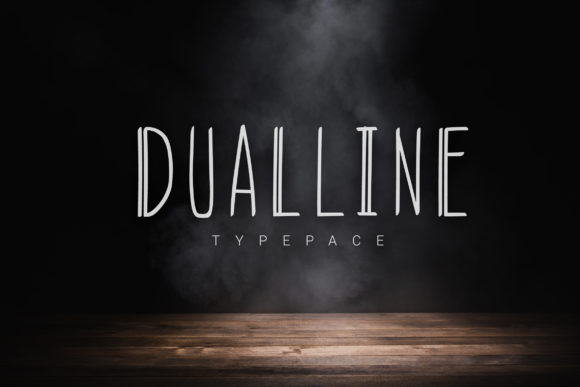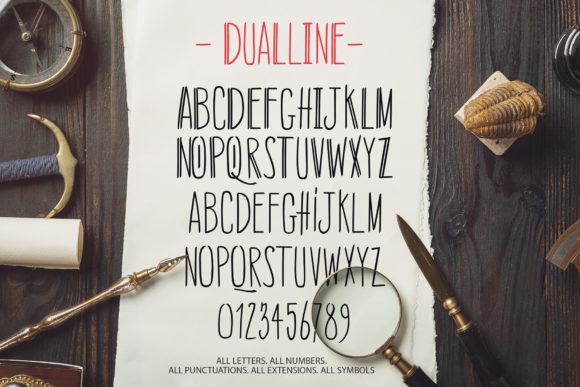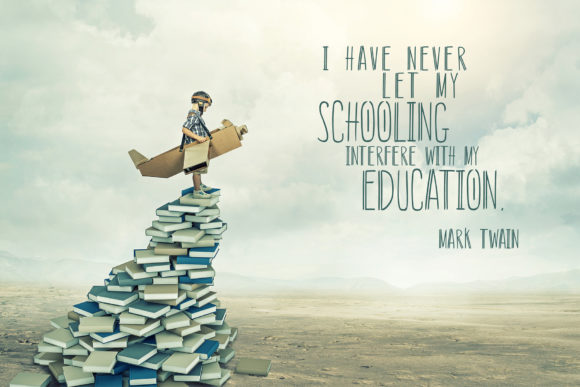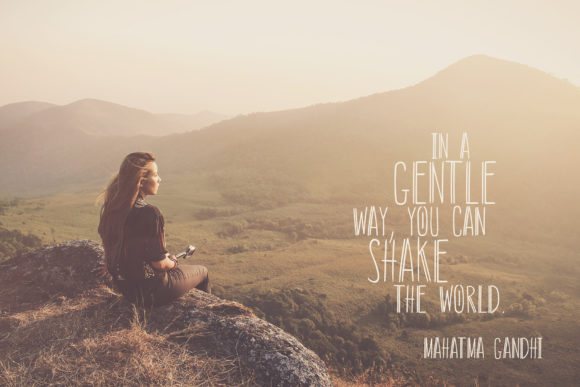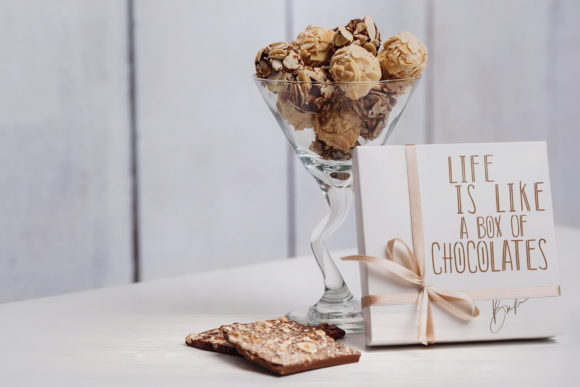
Introducing DualLine Font: Elevate Your Designs with a Modern and Appealing Display Font
In the world of design, fonts play a crucial role in conveying the message and aesthetic of a project. Whether you’re working on a branding campaign, a website, or a crafting project, the right font can make all the difference. If you’re looking for a modern and appealing display font to give your designs a unique edge, look no further than DualLine Font. In this article, we’ll explore the features and benefits of DualLine Font, and how it can help you achieve an original and modern appearance in your designs.
What is DualLine Font?
DualLine Font is a modern and stylish display font that is perfect for designers and crafters looking to add a touch of sophistication to their projects. With its clean lines and contemporary feel, DualLine Font is ideal for use in a variety of design applications, from logos and branding materials to websites and social media graphics.
Key Features of DualLine Font
- Modern and Appealing Design: DualLine Font boasts a sleek and modern design that is sure to turn heads. Its unique dual-line structure adds a touch of elegance and sophistication to any design.
- Ease of Use: DualLine Font is easy to use, whether you’re working on a design project from scratch or combining it with other fonts for a unique look.
- Versatility: DualLine Font is a versatile font that can be used in a variety of design applications, from print materials to digital projects.
- High-Quality Design: DualLine Font is designed with high-quality craftsmanship in mind, ensuring that your designs look professional and polished.
Benefits of Using DualLine Font
So why choose DualLine Font for your design projects? Here are just a few benefits of using this modern and appealing display font:
- Add a Touch of Sophistication: DualLine Font adds a touch of elegance and sophistication to any design, making it perfect for projects where you want to make a statement.
- Stand Out from the Crowd: With its unique dual-line structure, DualLine Font is sure to help your designs stand out from the crowd and grab attention.
- Easy to Pair with Other Fonts: DualLine Font is easy to pair with other fonts, allowing you to create unique and interesting combinations that add depth and visual interest to your designs.
- Perfect for Designers and Crafters: Whether you’re a professional designer or a crafter working on a personal project, DualLine Font is a great choice for anyone looking to add a modern and appealing touch to their designs.
How to Use DualLine Font in Your Designs
Using DualLine Font in your designs is easy. Here are a few tips to get you started:
- Use it as a Display Font: DualLine Font is perfect for use as a display font, making it ideal for headlines, titles, and other prominent text elements.
- Combine it with Other Fonts: Don’t be afraid to combine DualLine Font with other fonts to create a unique and interesting look.
- Experiment with Different Colors and Textures: DualLine Font looks great in a variety of colors and textures, so don’t be afraid to experiment and find the perfect combination for your design.
In conclusion, DualLine Font is a modern and appealing display font that is perfect for designers and crafters looking to add a touch of sophistication to their projects. With its clean lines, contemporary feel, and ease of use, DualLine Font is a great choice for anyone looking to achieve an original and modern appearance in their designs. So why wait? Download DualLine Font today and start elevating your designs to the next level!